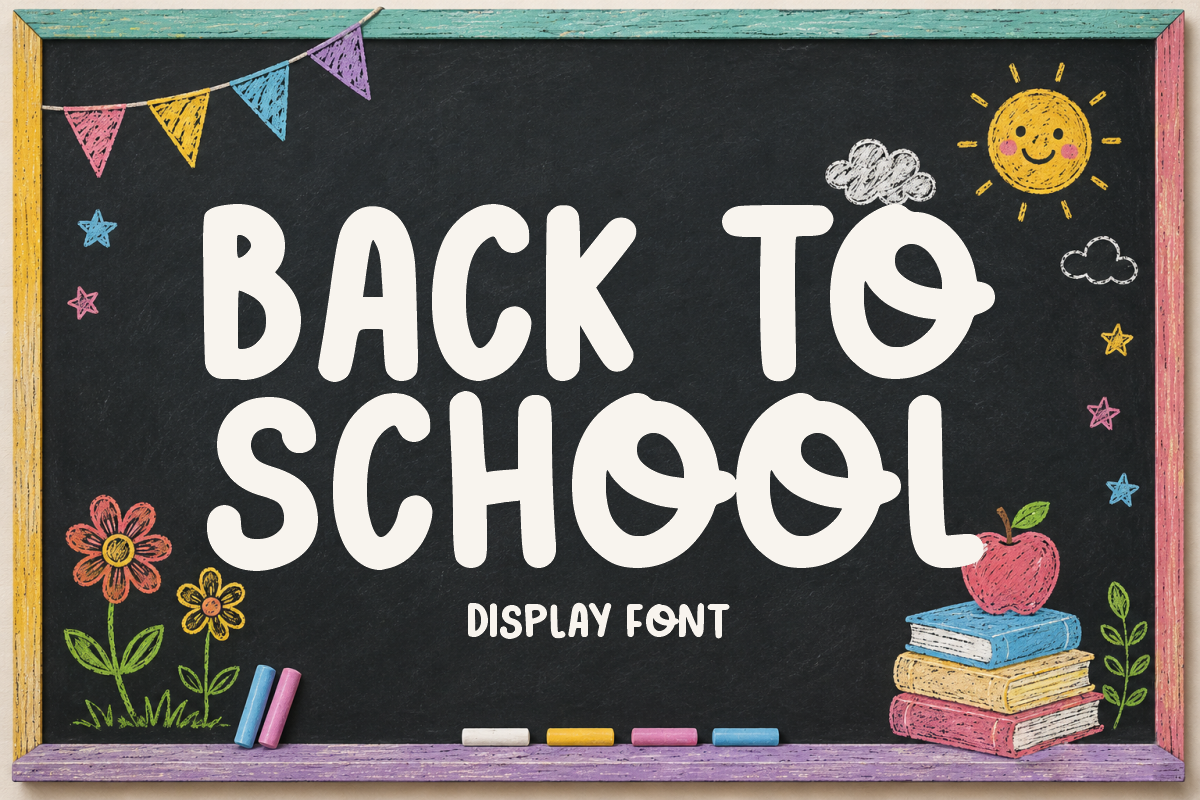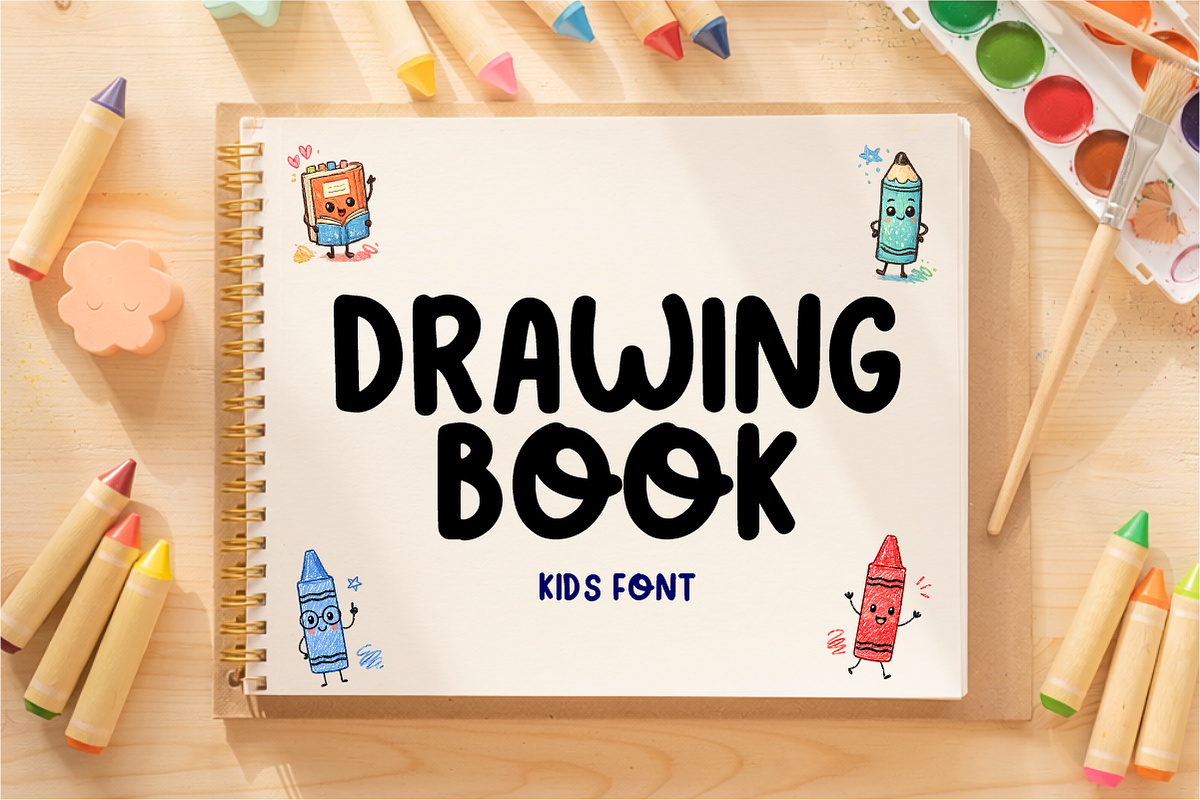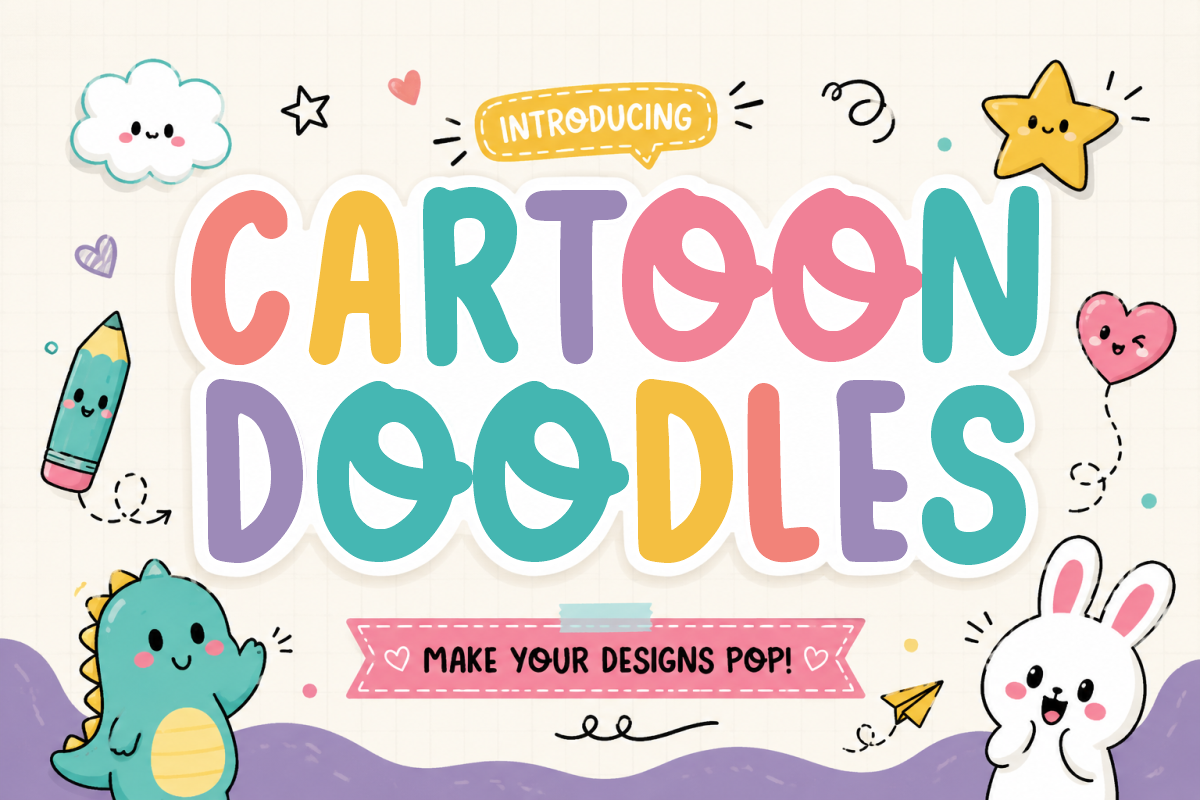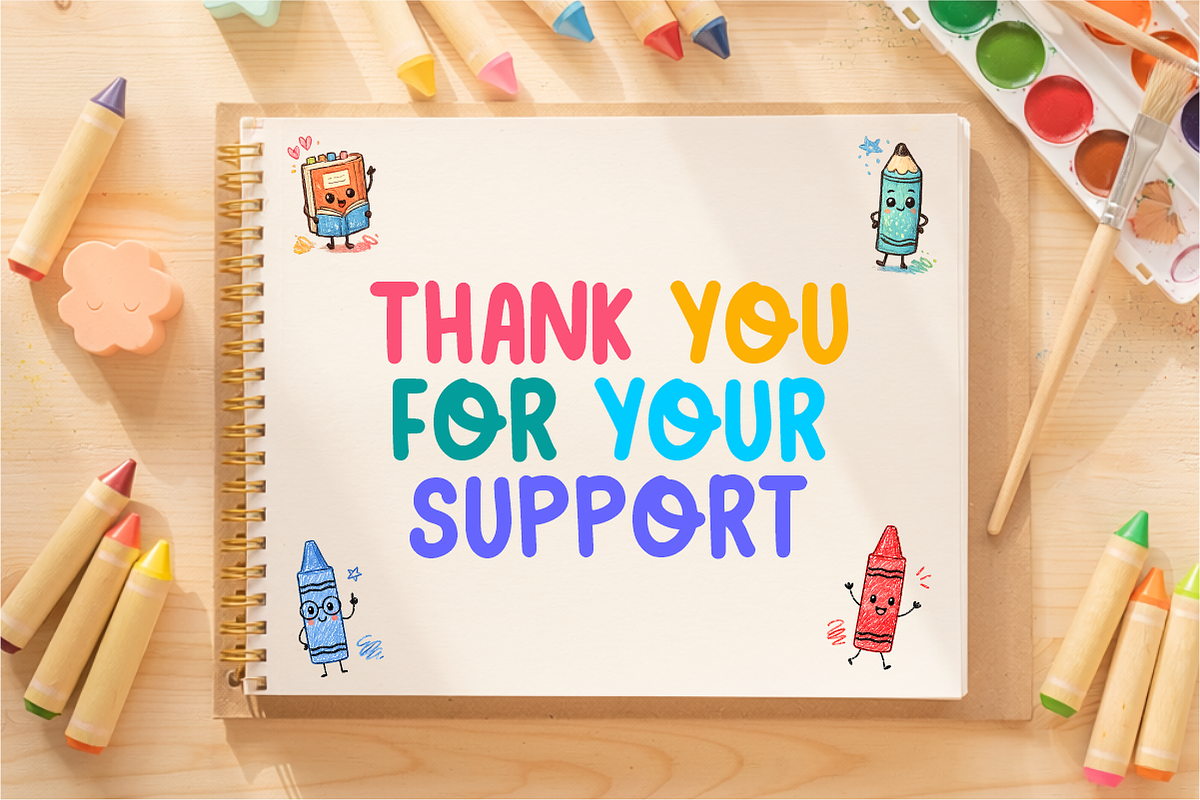
Cartoon Doodles - Playful Kids Font
Cartoon Doodles is a charming, hand-drawn display font featuring rounded, bubbly letterforms filled with playful doodle energy and cute storybook warmth. Overflowing with childlike joy and cheerful personality, this fun font makes your designs pop across kids' products, nursery prints, birthday cards, and DIY craft projects. Every character is cleanly vectorized to guarantee high-resolution prints and smooth, effortless cutting on Cricut and Silhouette machines.